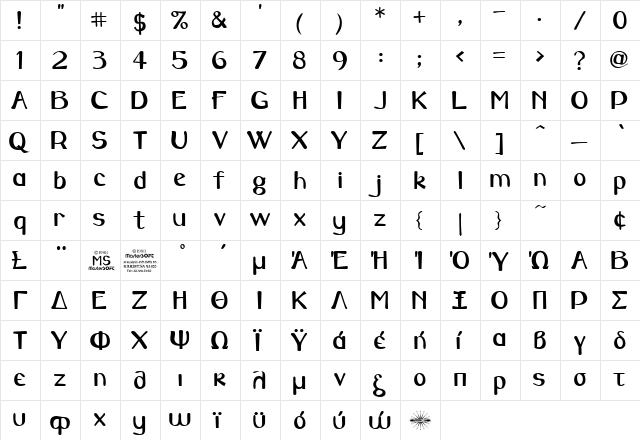
MSCaraway Regular
Design Context for MSCaraway Typeface
MSCaraway is a composed and adaptable typeface that performs quietly and consistently across a wide range of design contexts.